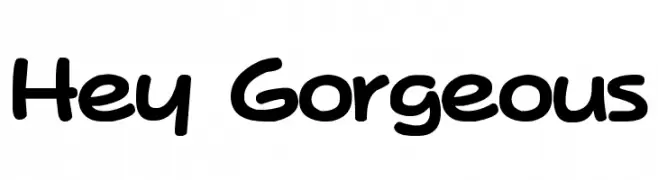
A whimsical, elegant font with tall, narrow, hand-drawn characters.
A bold, rounded font with a clean and approachable design.
Ornate celestial icons with a vintage, mystical style.
Bold, condensed, slanted sans-serif with high energy and impact.
A modern, geometric sans-serif font with clean lines and uniform stroke width.
A bold, modern font with a geometric design, ideal for impactful headlines.
A bold, italicized font with a dynamic and modern style.
A bold, geometric font with a modern and monospaced appearance.
A bold, italic, modern font with a sleek and dynamic appearance.
A bold, condensed font with a modern, geometric style.
A bold, italic, and condensed font with a dynamic and modern style.
A bold, condensed font with a modern, geometric style.
A bold, italic, and condensed font with a modern and sleek appearance.
A modern, italicized, and condensed font with a sleek design.
A modern, italicized font with sleek lines and a dynamic style.
Silhouette profile illustrations of various head shapes and hairstyles.
A bold, geometric font with sharp angles and a blocky structure.
Cartoonish superhero-themed decorative font with illustrated character glyphs.
A bold, modern, and condensed font with a geometric structure.
A modern, narrow sans-serif font with consistent stroke width and clean lines.
A bold, modern font with tall, slightly condensed characters and a sleek appearance.
A bold, geometric font with Art Deco influences, ideal for impactful designs.
A bold, geometric font with sharp angles and a dynamic style.
A bold, retro arcade-style font with three-dimensional outlines and geometric details.
A bold, cursive script font with interconnected, flowing letters and dramatic loops.
A playful, italic script font with smooth curves and elegant swashes.
A bold, decorative font with playful curves and artistic flair.